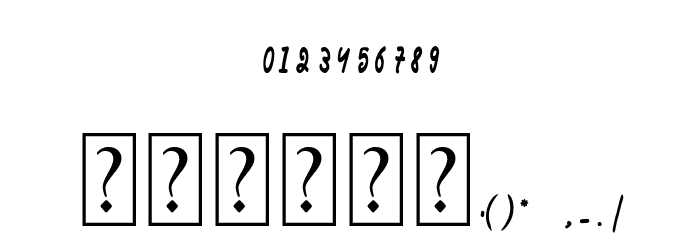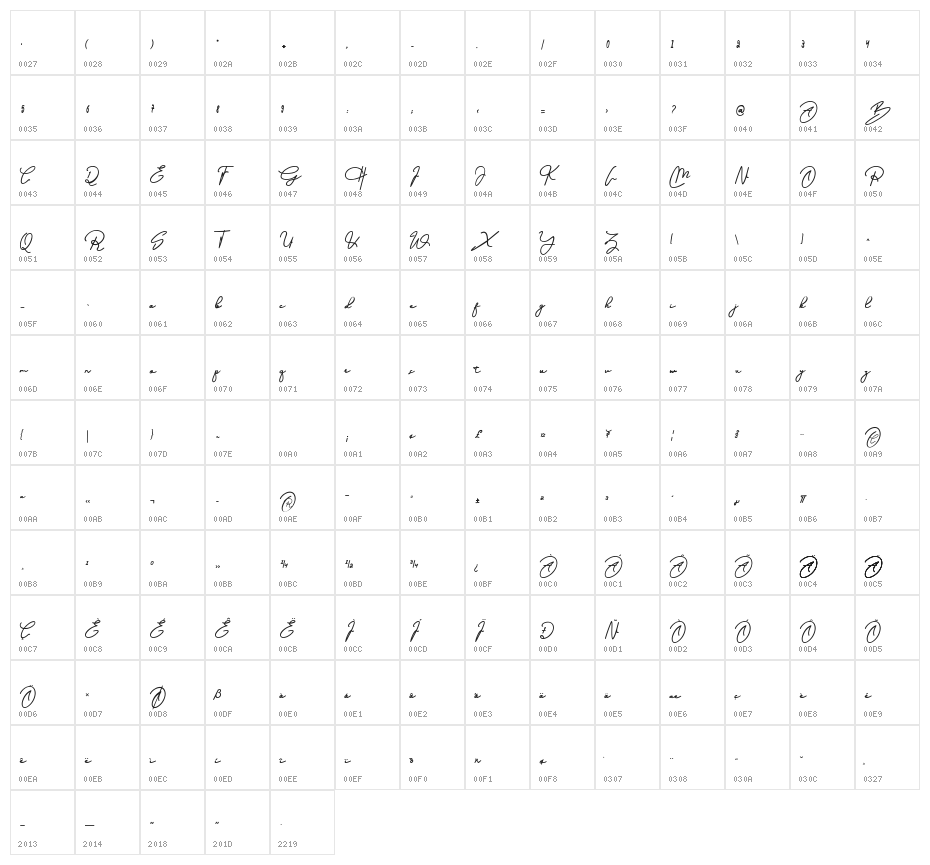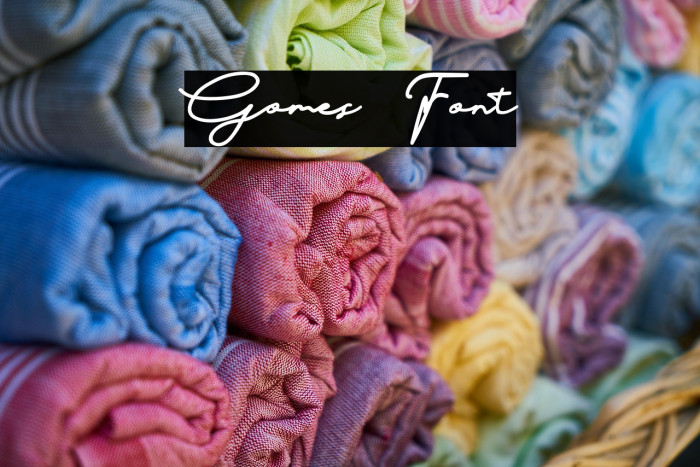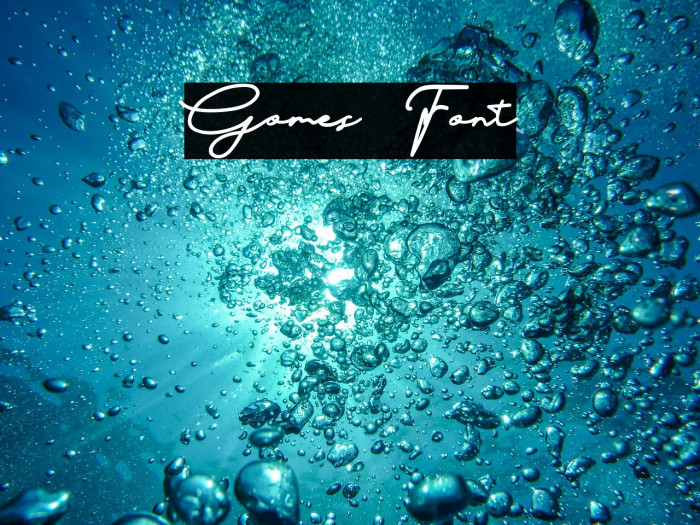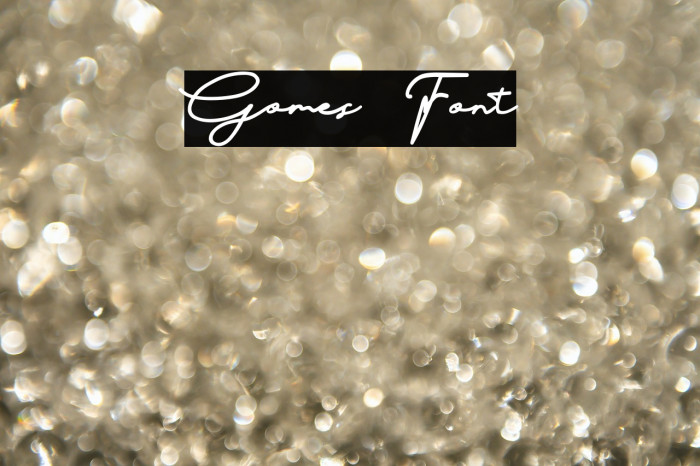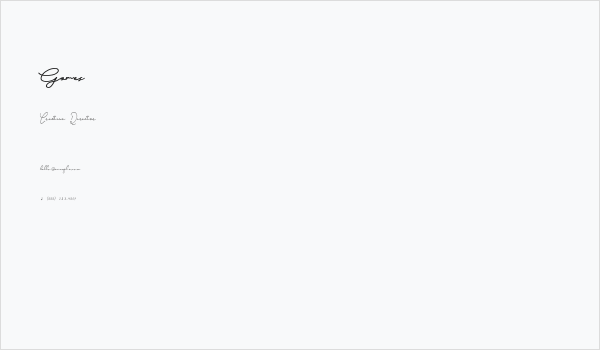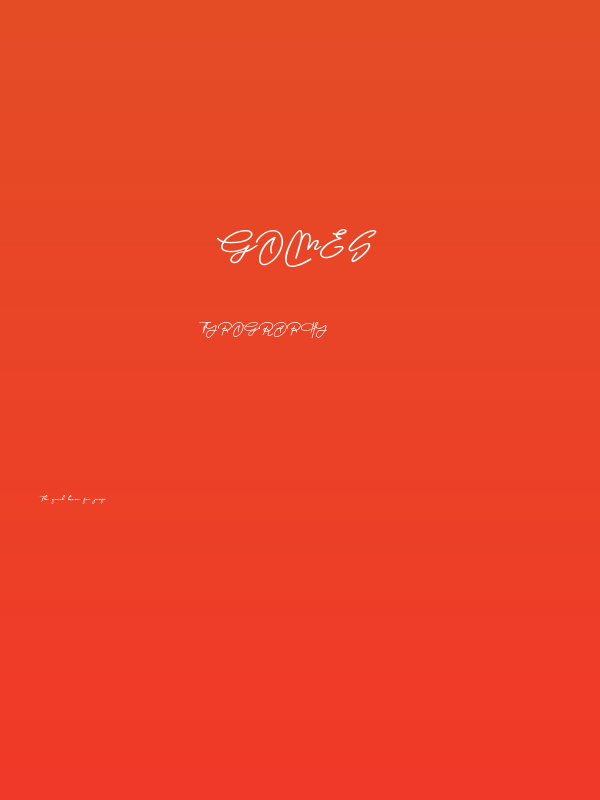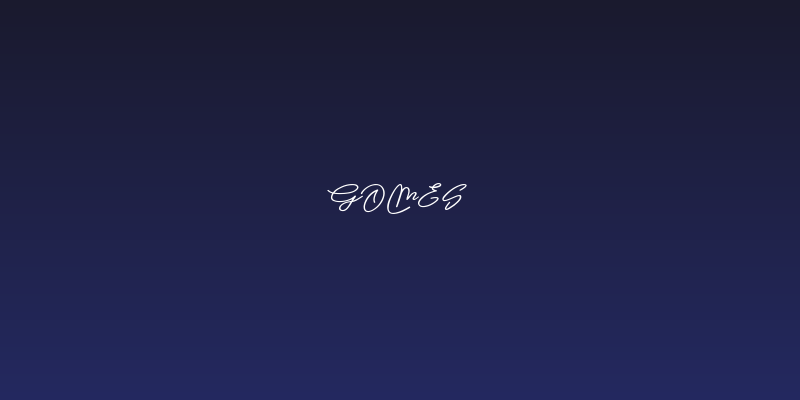
Gomes Font
Gomes Description
This font exhibits a fluid, cursive style with elegant, flowing lines that mimic the natural motion of handwriting. The uppercase letters are characterized by their sweeping curves and loops, giving them a sophisticated and graceful appearance. The lowercase letters maintain a consistent style, with smooth connections between each character, enhancing the script's legibility and aesthetic appeal. The numerals are designed to match the overall cursive theme, featuring gentle curves and a slightly playful touch. The special characters, although not fully visible, appear to follow the same elegant script style, ensuring consistency across all glyphs. This font is ideal for projects that require a personal, handwritten touch, such as invitations, greeting cards, or branding materials that aim to convey elegance and sophistication.
| Use Case | Invitations, Greeting cards, Personal branding |
| Proposed Projects | Ideal for wedding invitations, greeting cards, personal branding, and elegant stationery. |